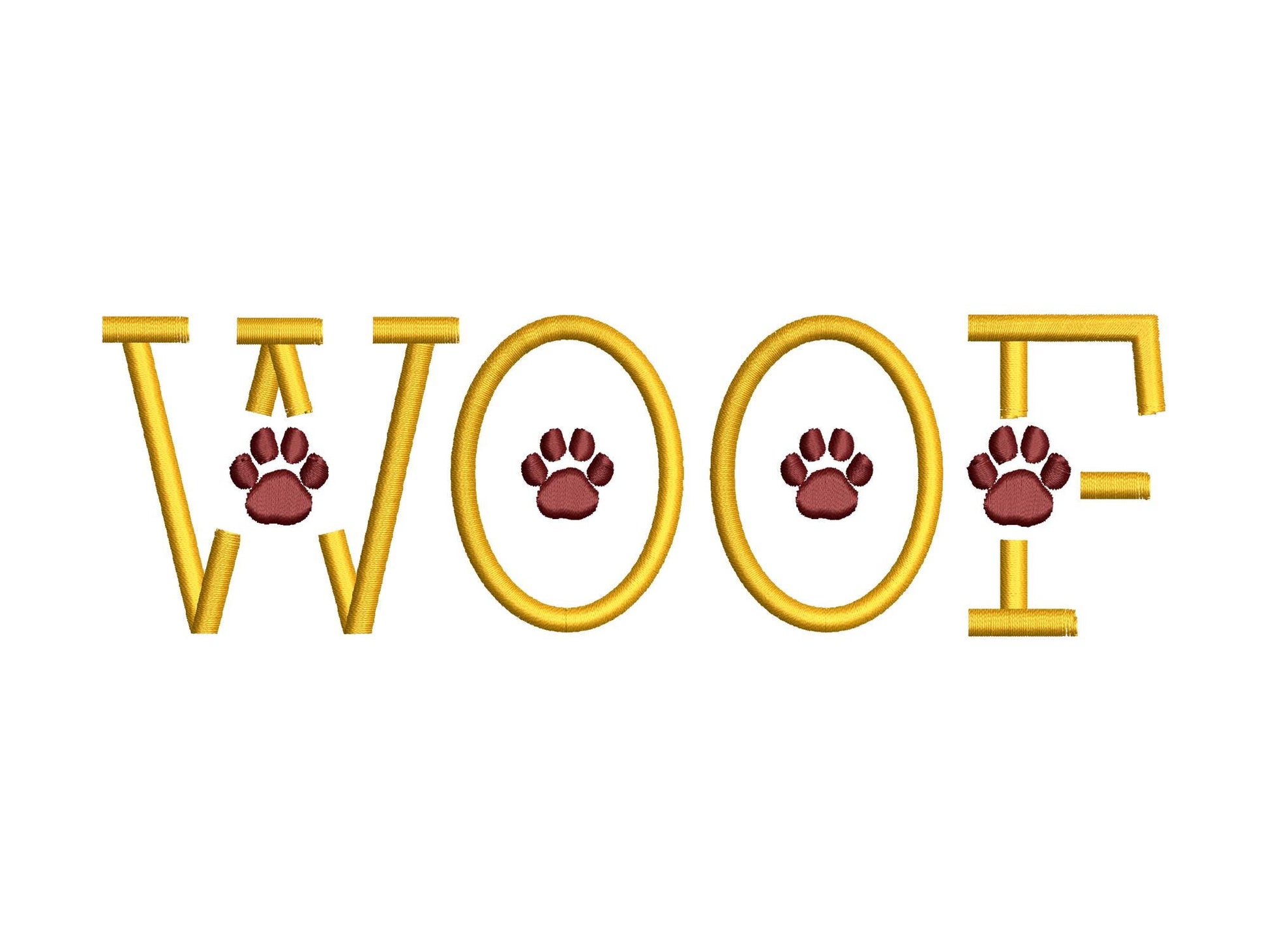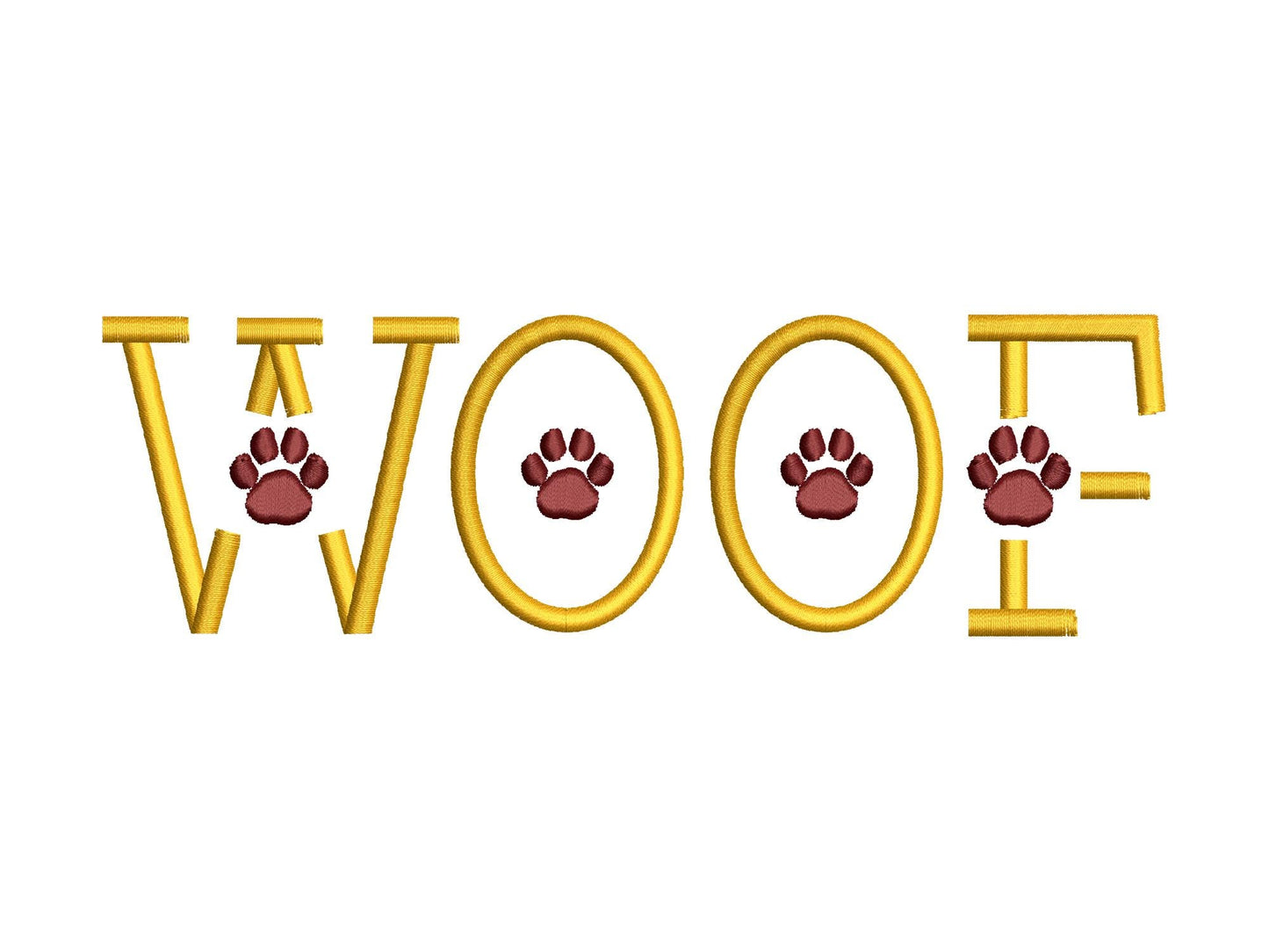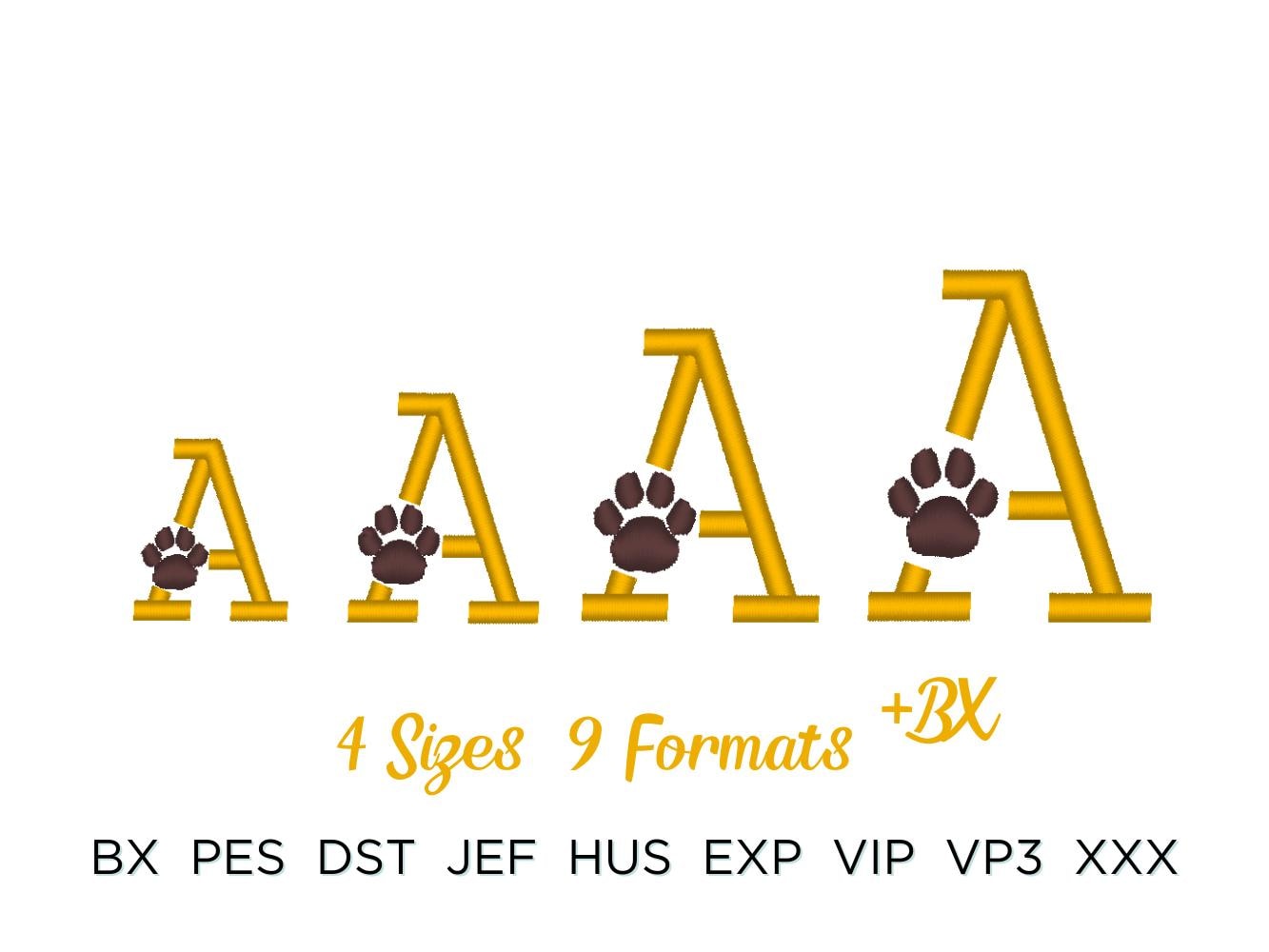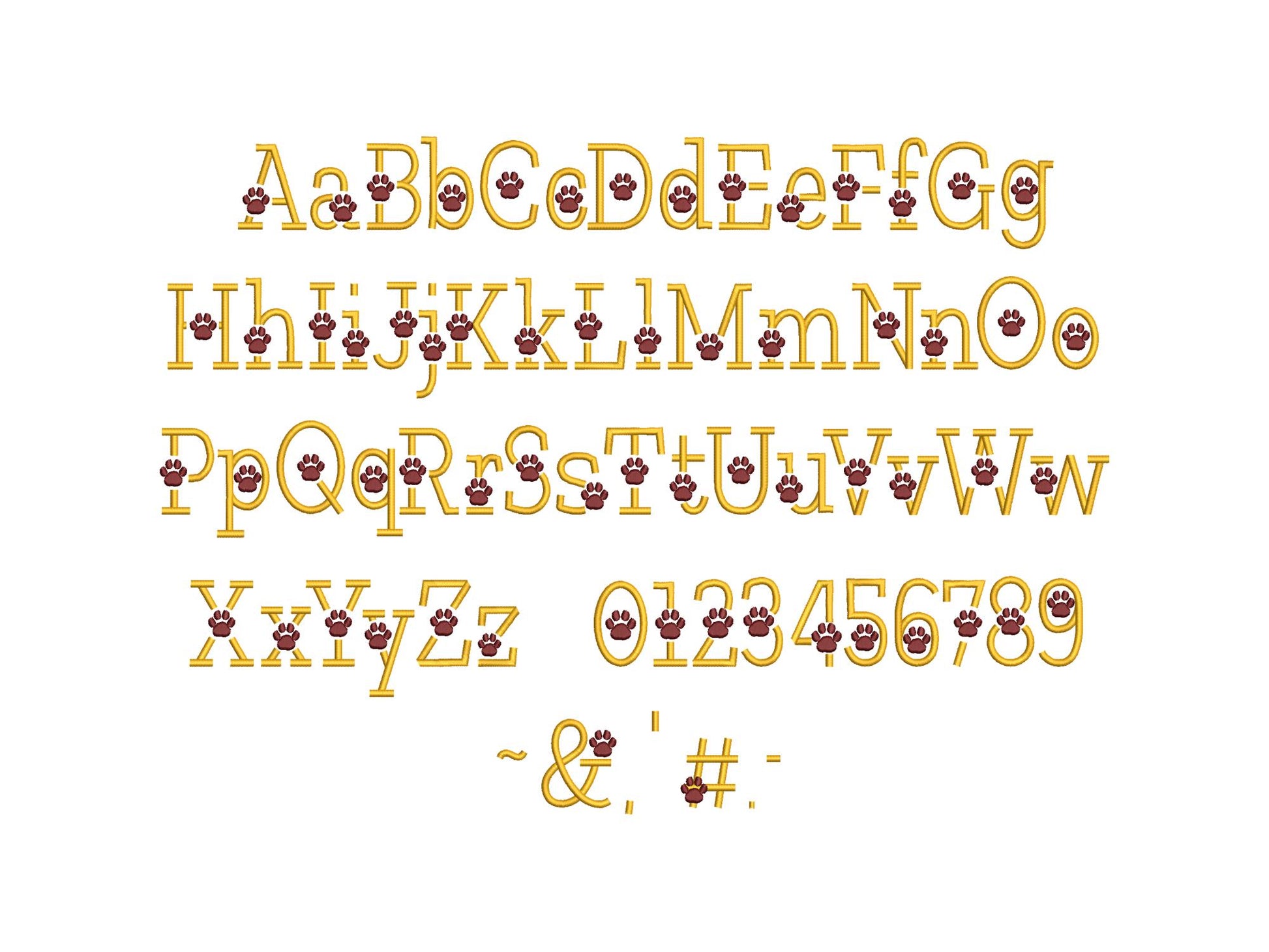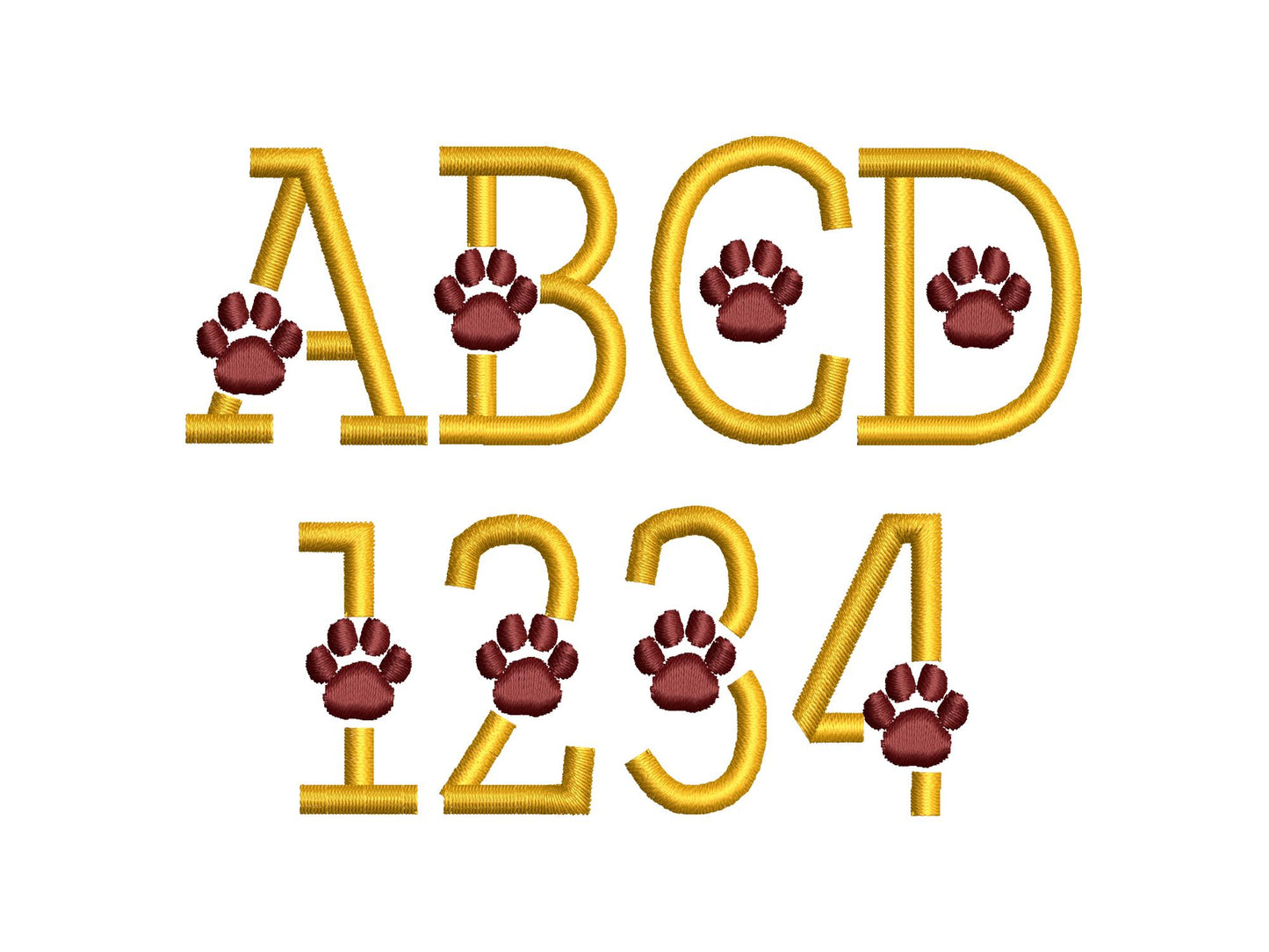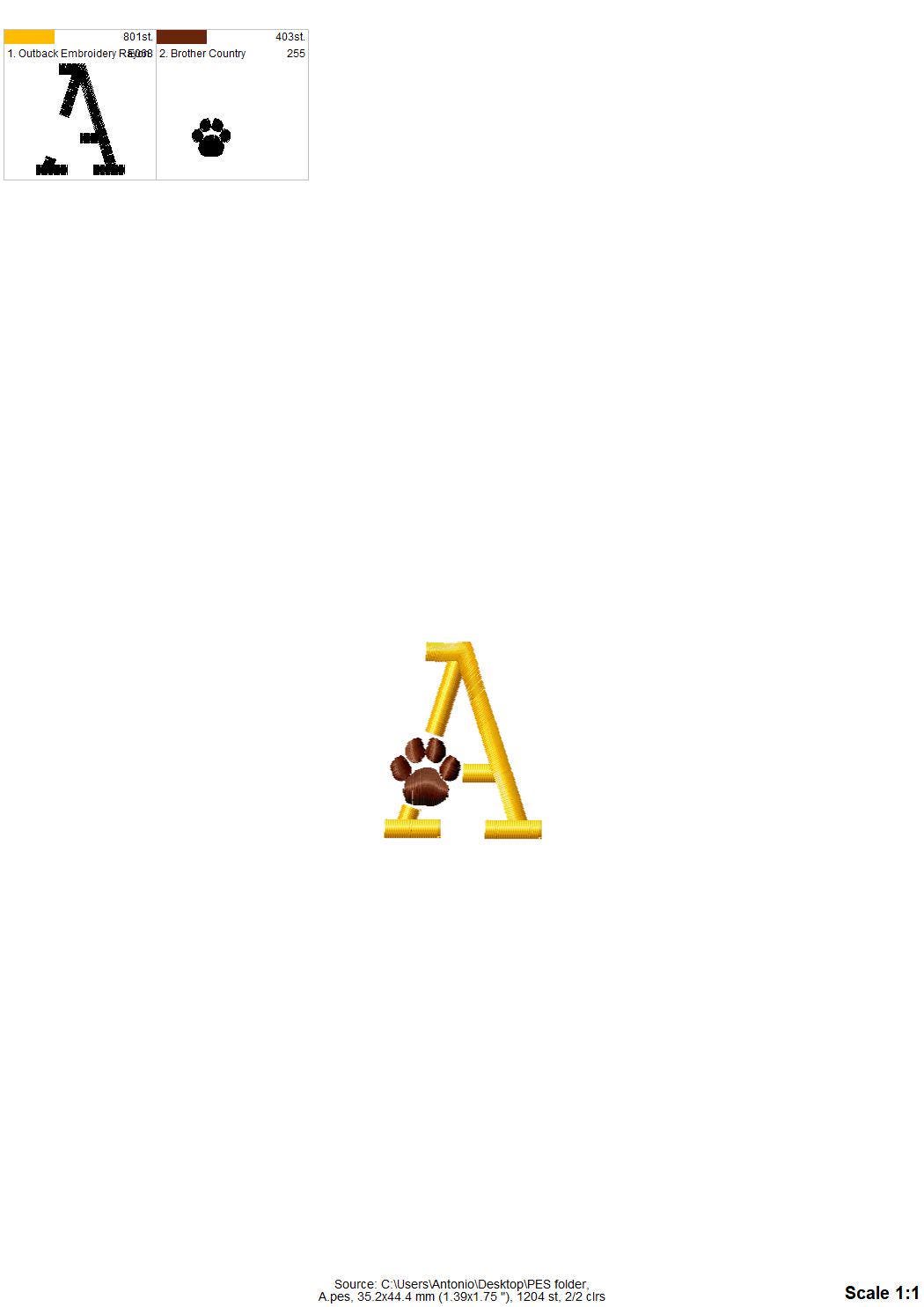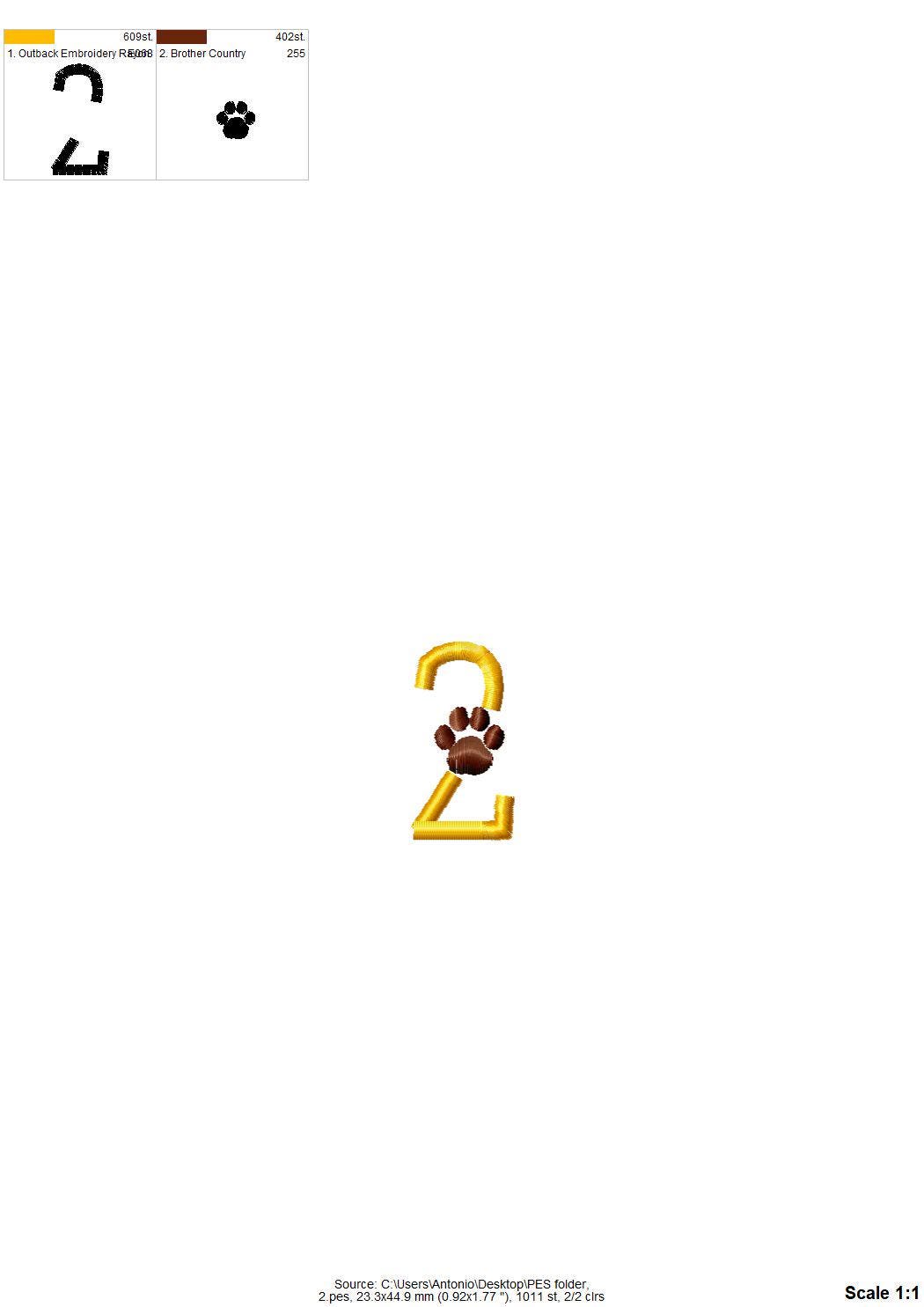
Or click to open the linkA satin stitch block font with a little paw print. Cute for pet names, dog and cat lovers' shirts, bandanas and pet beds.
Uppercase and lowercase letters, numbers 0 to 9 and punctuation. Four sizes: 1.1, 1.4, 1.7 and 2.1 inches. Smooth satin letters with a paw print accent.